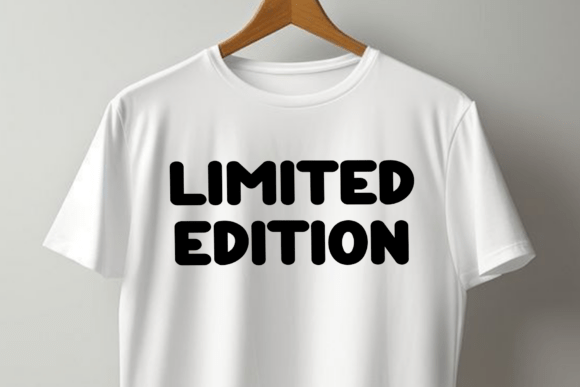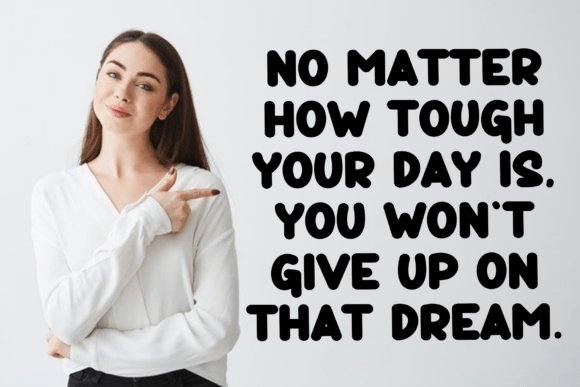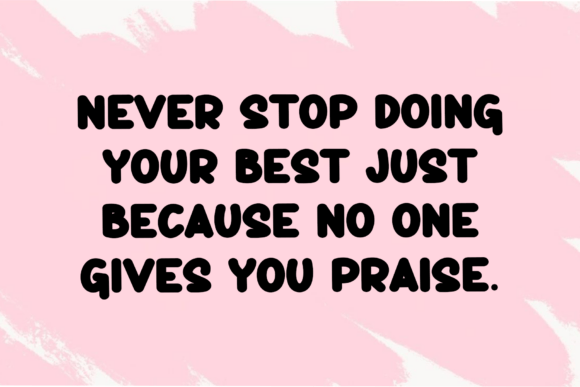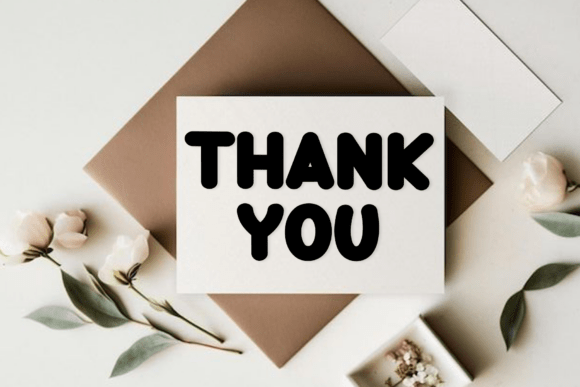
Discover the Charm of Disney Bubble Font: Elevate Your Designs with a Friendly and Modern Twist
Are you on the hunt for a font that embodies the perfect blend of simplicity, friendliness, and modern sophistication? Look no further than the Disney Bubble Font. This casual and neat display font has been making waves in the design community, and for good reason. Its unique combination of clean lines, balanced letterforms, and subtle rounded edges makes it an ideal choice for designers and crafters looking to add a warm and inviting touch to their projects.
The Essence of Disney Bubble Font
At its core, Disney Bubble Font is all about capturing the essence of modern handwritten typography with a polished finish. Its design is characterized by:
- Clean Lines: The font features clean and crisp lines that give it a modern and sleek appearance.
- Balanced Letterforms: Each letterform is carefully crafted to ensure balance and harmony, making the font a joy to read and use.
- Subtle Rounded Edges: The subtle rounded edges add a touch of friendliness and approachability to the font, making it perfect for designs that require a warm and inviting tone.
Disney Bubble Font is incredibly versatile and can be used in a wide range of design applications, including:
- Branding: Use Disney Bubble Font to create a strong and recognizable brand identity that resonates with your target audience.
- Headlines: Add a touch of modern sophistication to your headlines with this eye-catching font.
- Packaging: Make your packaging designs stand out with the Disney Bubble Font’s unique and charming style.
- Digital Content: Use this font to create engaging and visually appealing digital content that captures the attention of your audience.
Why Designers and Crafters Love Disney Bubble Font
So, what makes Disney Bubble Font a favorite among designers and crafters? Here are just a few reasons:
- Easy to Read: The font’s clean lines and balanced letterforms make it easy to read, even at smaller sizes.
- Versatile: Disney Bubble Font can be used in a wide range of design applications, from branding and headlines to packaging and digital content.
- Unique Style: The font’s subtle rounded edges and modern design give it a unique style that’s sure to make your designs stand out.
Tips for Using Disney Bubble Font in Your Designs
Here are a few tips for getting the most out of Disney Bubble Font in your designs:
- Pair it with Other Fonts: Experiment with pairing Disney Bubble Font with other fonts to create a unique and visually appealing typography scheme.
- Use it for Headlines: Disney Bubble Font is perfect for headlines and titles, so don’t be afraid to use it to add a touch of modern sophistication to your designs.
- Experiment with Colors: The font’s clean lines and balanced letterforms make it easy to use with a wide range of colors, so don’t be afraid to experiment and find the perfect combination for your design.
In conclusion, Disney Bubble Font is a versatile and charming display font that’s perfect for designers and crafters looking to add a warm and inviting touch to their projects. Its unique combination of clean lines, balanced letterforms, and subtle rounded edges makes it an ideal choice for a wide range of design applications. Whether you’re working on a branding project, creating headlines, or designing packaging, Disney Bubble Font is sure to deliver clarity and charm in equal measure.